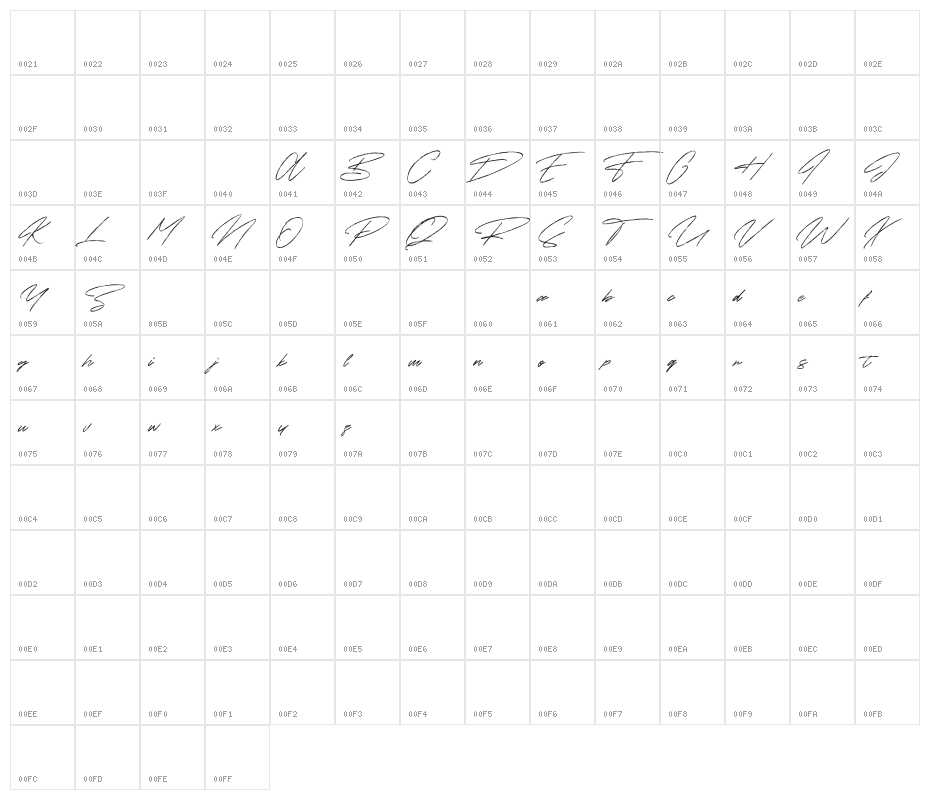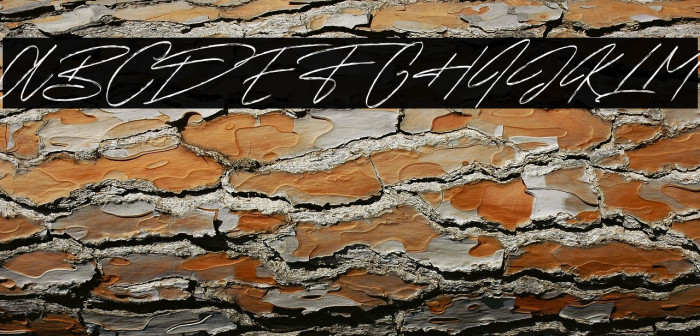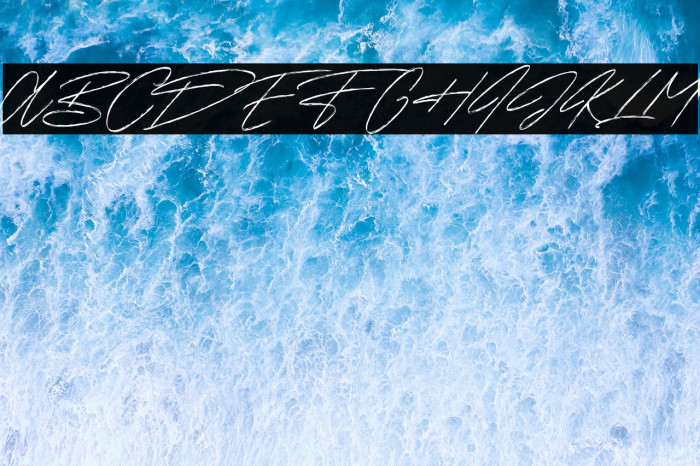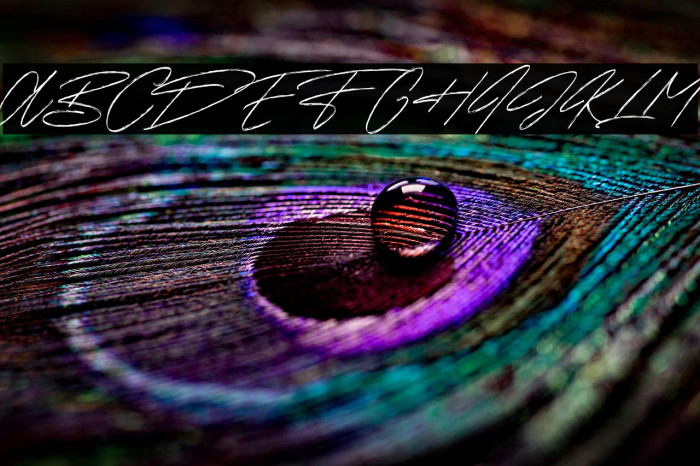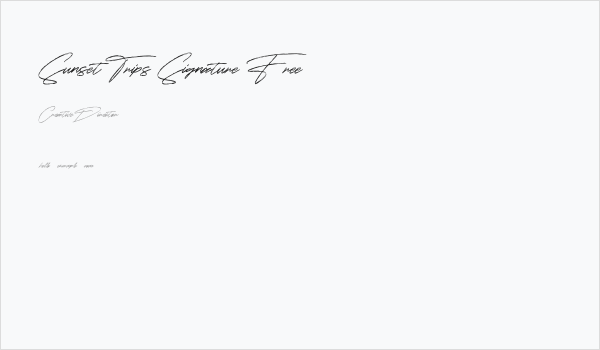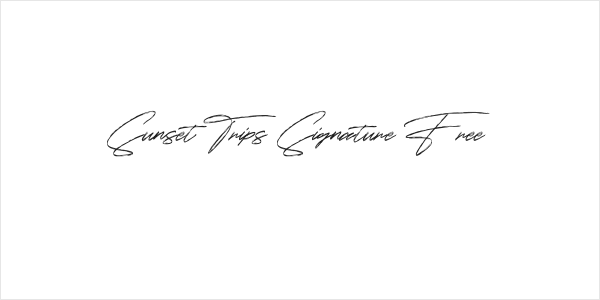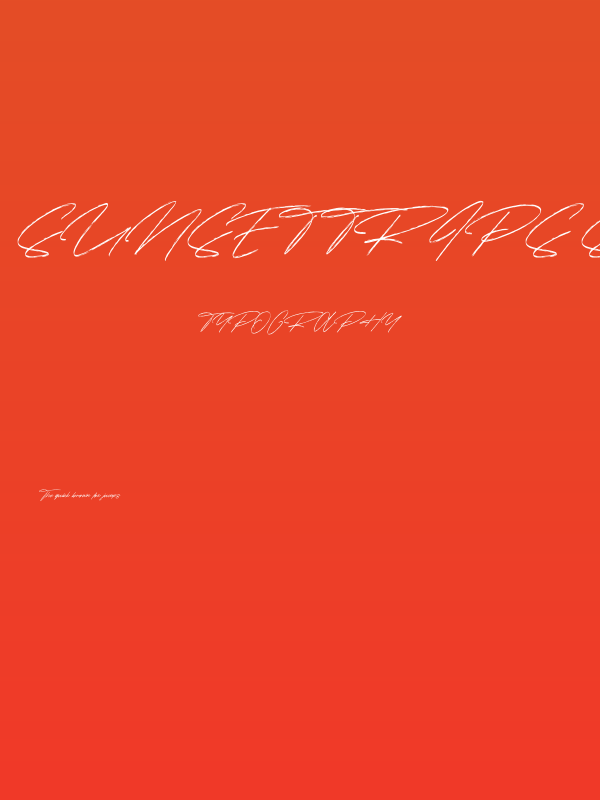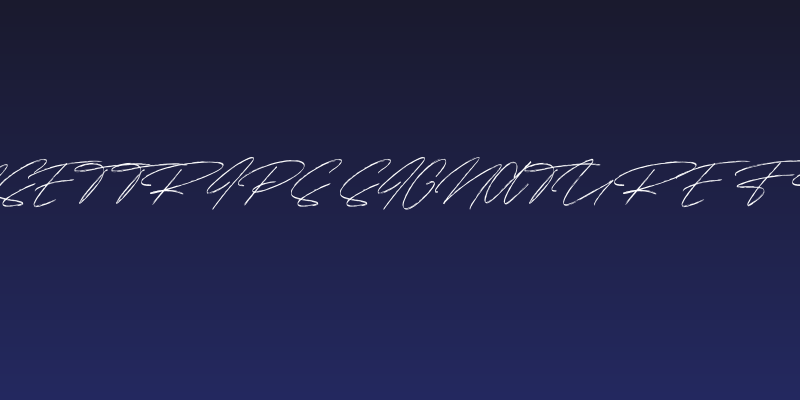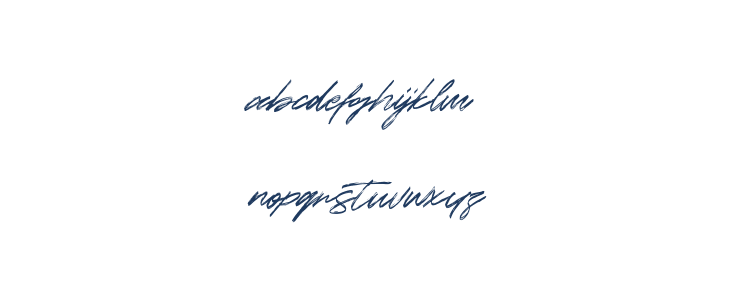
Sunset Trips Signature Free Font
Sunset Trips Signature Free Description
This font exudes a sophisticated and elegant style, characterized by its fluid, cursive script that mimics the natural flow of handwriting. The letters are interconnected with graceful loops and swirls, creating a sense of continuity and motion. The strokes vary in thickness, adding a dynamic quality to the text. This font is particularly suited for projects that require a personal touch, such as invitations, greeting cards, or branding materials that aim to convey a sense of elegance and refinement. Its artistic flair makes it ideal for creative projects where a handwritten appearance is desired.
| Proposed Projects | Ideal for invitations, greeting cards, branding materials, and creative projects requiring a personal touch. |